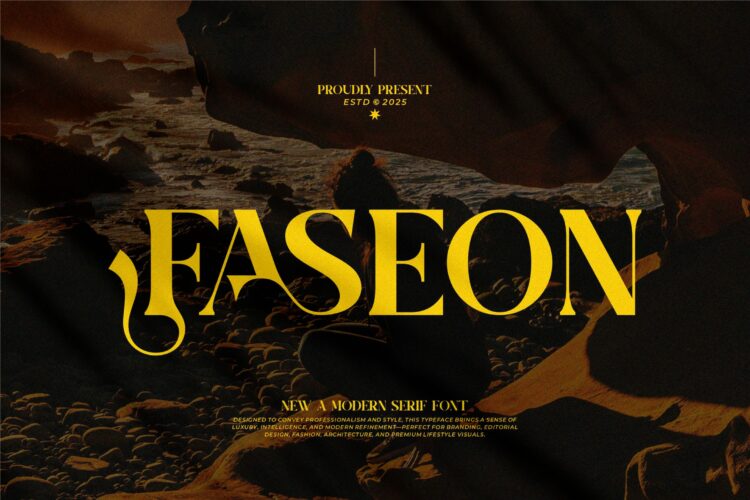
Faseon Font
Faseon is a modern, elegant serif font that works well for branding and logo design. Its appealing look also suits movie titles, business cards, book covers, brand names, and other uses. The smooth design of Faseon Serif brings a sense of sophistication to any project.
Faseon Serif Font